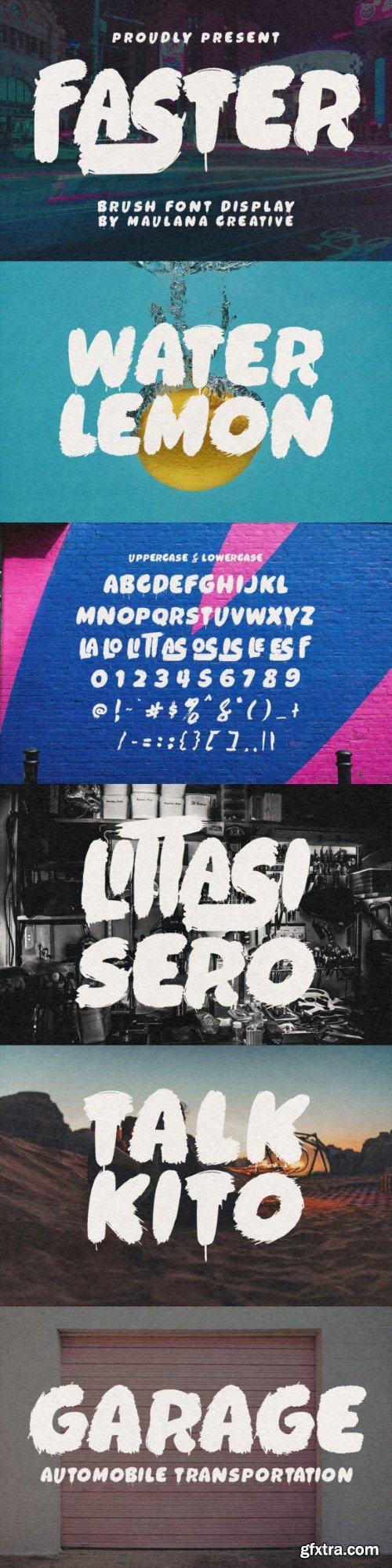
Faster Font
Give your designs an authentic brush handcrafted feel. “Faster Brush Font Display” is perfectly suited to signature, stationery, logo, typography quotes, magazine or book cover, website header, flyer, clothing, branding, packaging design and more.